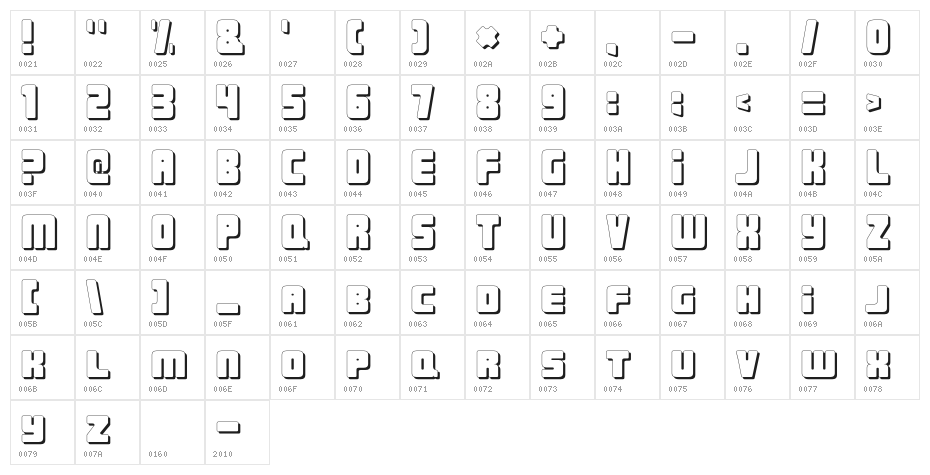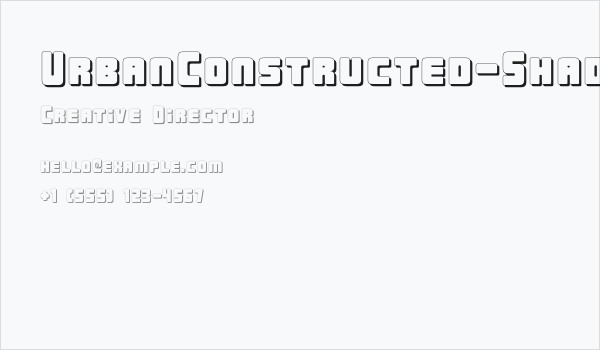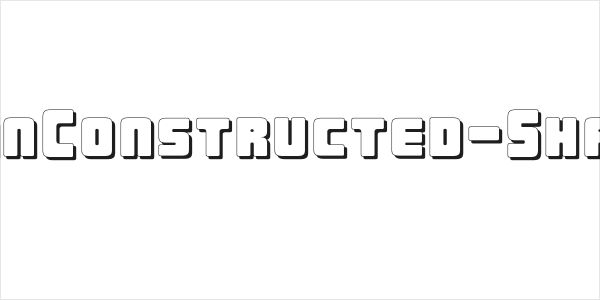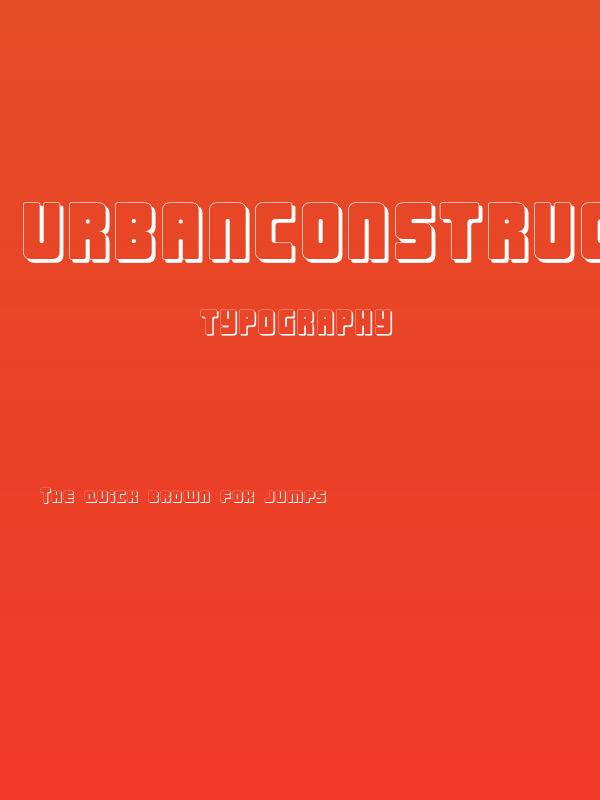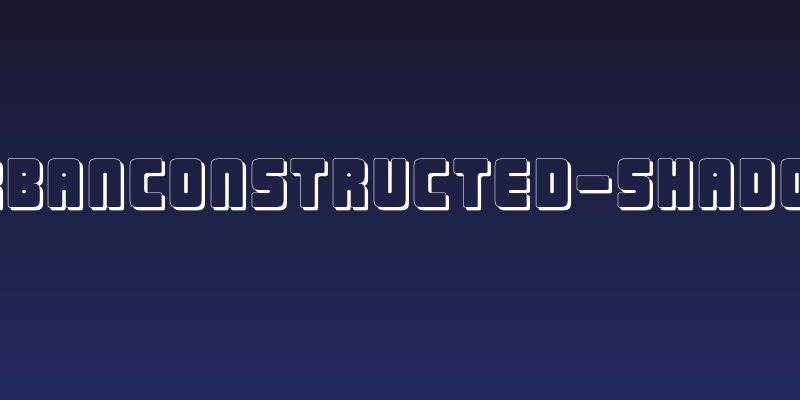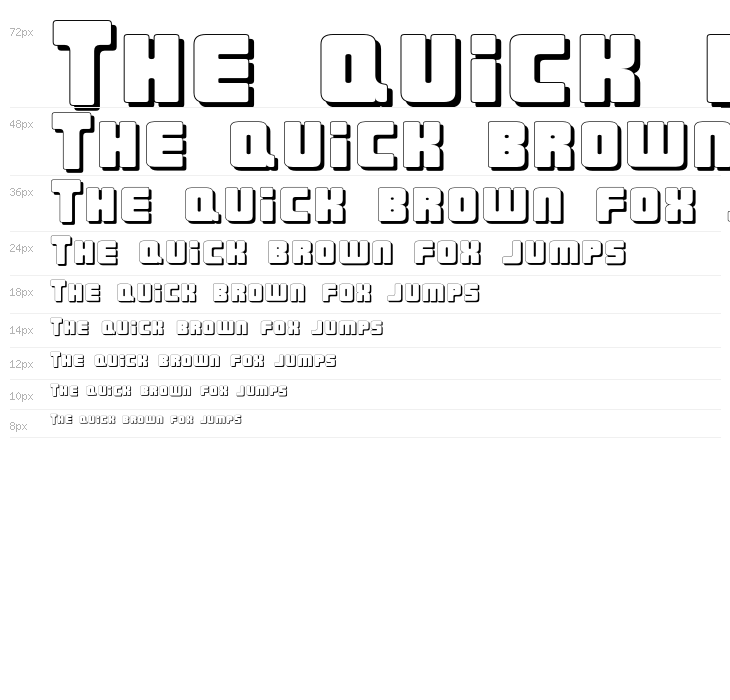
UrbanConstructed-Shadow Font
| Vorgeschlagene Projekte | Ideal for urban-themed posters, modern branding, eye-catching headlines, and digital artwork. |